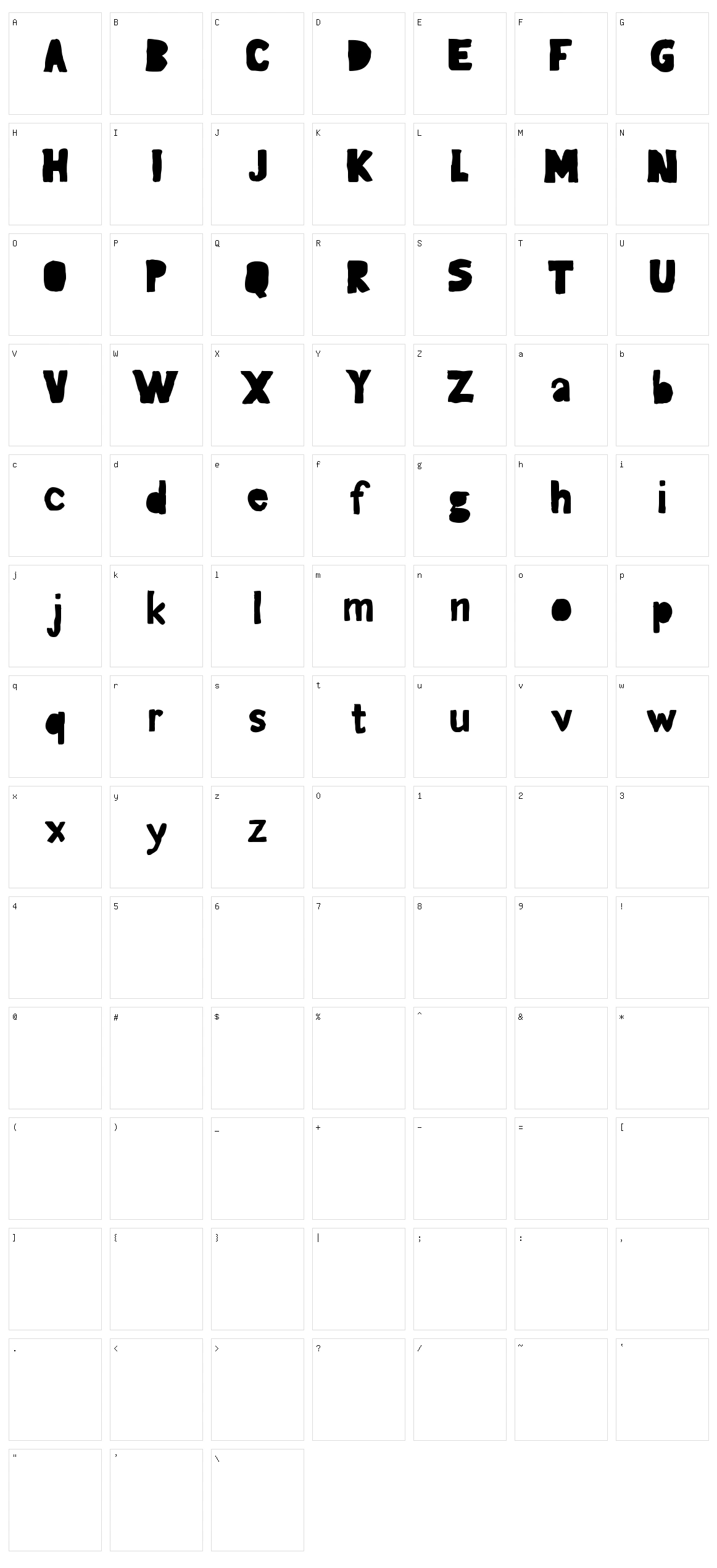
The free font Gagaille Seconde is carefully designed by Anthony Beyer, showcasing a thoughtful balance of creativity and usability and falls under the Eroded font style. When you download the ZIP file, it contains only 11.6 KB of font files, making it lightweight and quick to download. Please review the license details below to understand permitted usage and distribution rights. If license information is not available, we recommend using this font for personal projects only or contacting the author directly for commercial usage permissions.